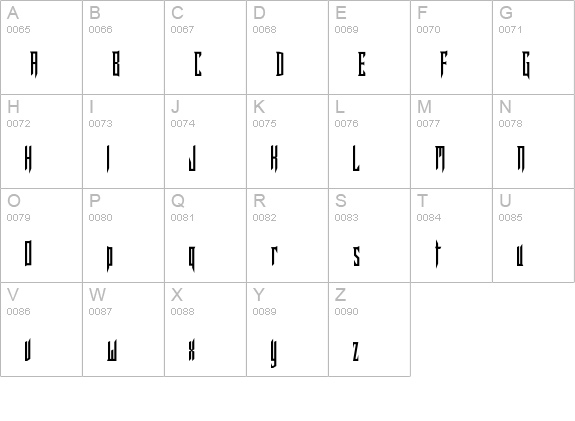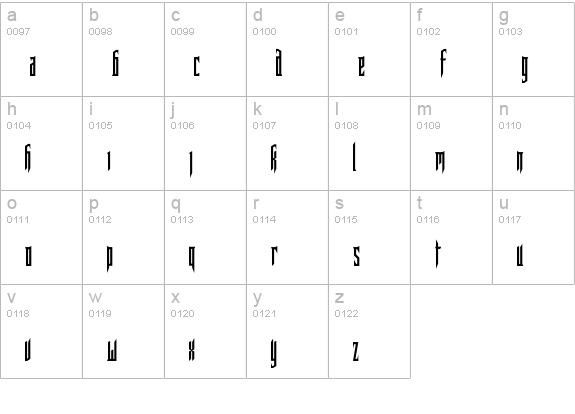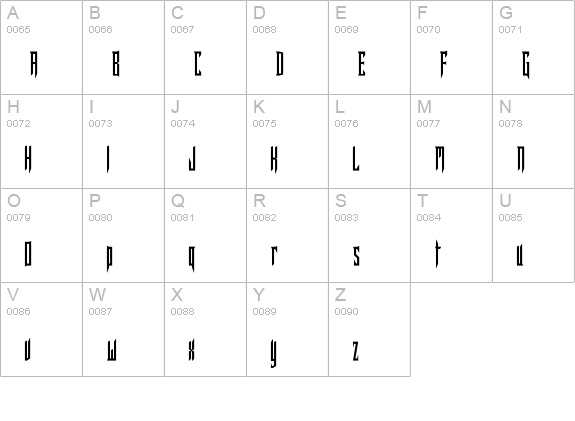
MargoGothic Font Details
Introducing MargoGothic font, a stunning and captivating typeface that effortlessly blends elegance with a touch of darkness. With its unique and intricate design, MargoGothic font is perfect for adding an air of mystery and sophistication to any project. Featuring a wide range of characters, including uppercase and lowercase letters, numerals, punctuation marks, and special symbols, MargoGothic font offers endless possibilities for creative expression. Its elongated and slightly curved letterforms create a sense of movement and fluidity, making it visually striking and engaging. What sets MargoGothic font apart is not only its exceptional aesthetics but also its accessibility. This extraordinary font is available for free download exclusively at FontsMarket.com. Yes, you read that right - completely free! Now you can effortlessly bring a touch of Gothic elegance to your designs without breaking the bank. Whether you're designing a logo, branding materials, posters, invitations, or any other creative project, MargoGothic font will undoubtedly make a lasting impression. Its versatility allows it to be used in a variety of contexts, from vintage-inspired designs to contemporary and edgy compositions. Don't miss out on the opportunity to enhance your creations with this remarkable font. Embrace the mystique and allure of MargoGothic font, freely available to download at FontsMarket.com. Unleash your creativity and let this font transport your audience into a world of dark beauty and enchantment.